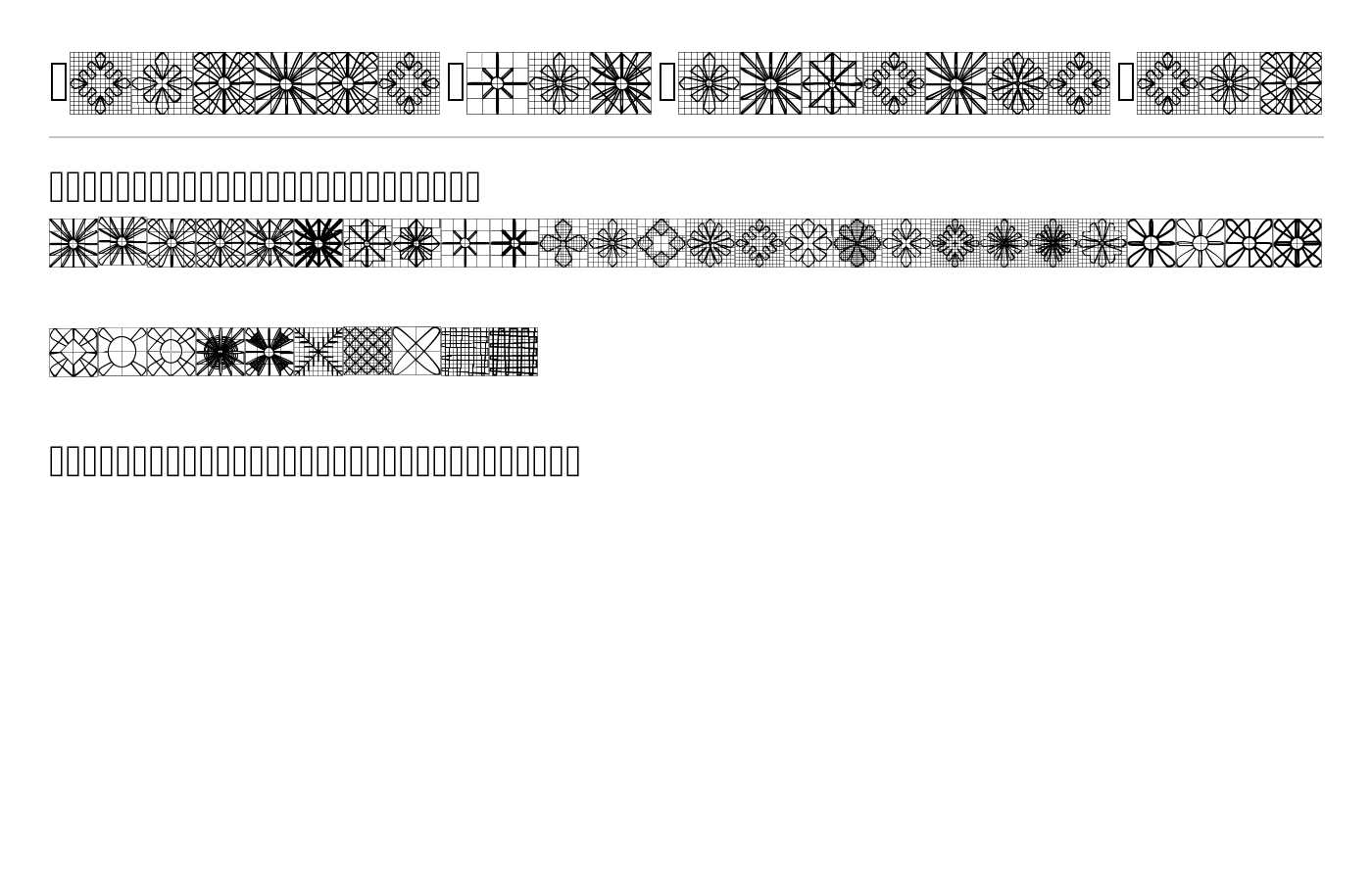
Bordado File Alagoano Bold is a decorative display font inspired by traditional embroidery patterns, featuring intricate geometric motifs rather than conventional letterforms. Its bold, ornamental style makes it ideal for cultural branding, crafts packaging, or artistic posters where a unique, handcrafted aesthetic is desired. This font works best when used sparingly as a design element to evoke heritage and artisanal charm.
Bordado File Alagoano Bold Font
About Bordado File Alagoano Bold Font